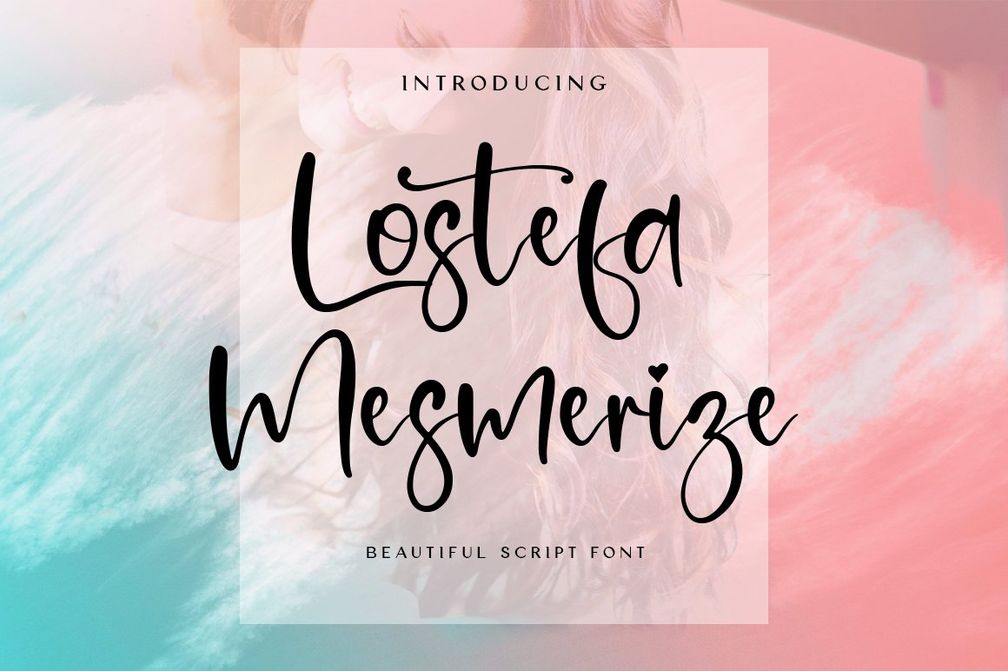
Lostefa Mesmerize
Proudly present by Wildan Type and Isolatype Lostefa Mesmerize is a lovely and delicate script font that exudes elegance and class. This font was particularly crafted for those who need a beautiful and refreshing look to their designs.